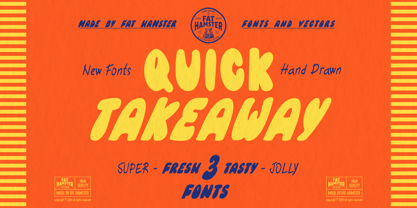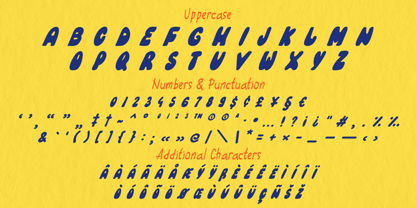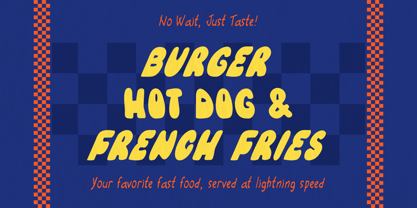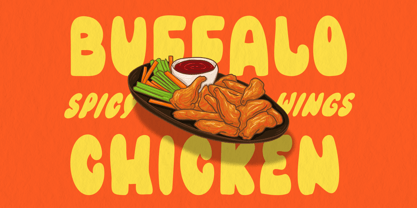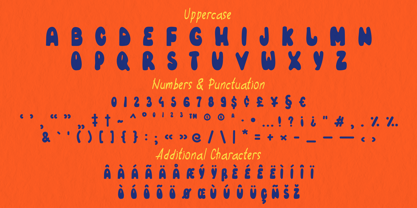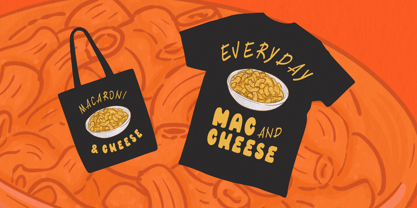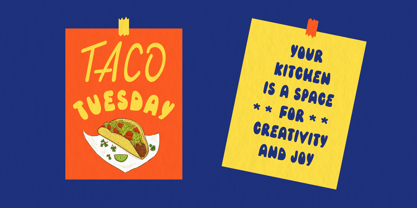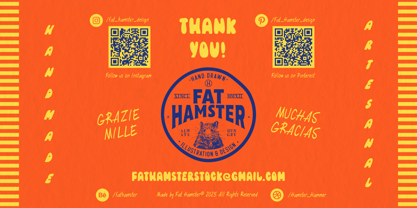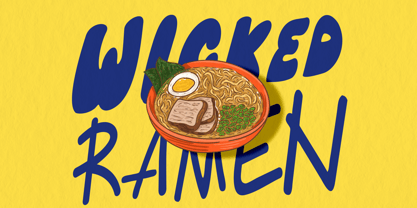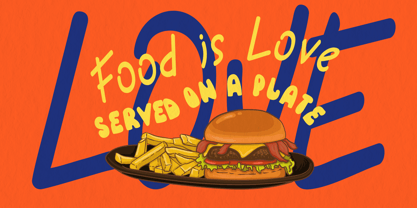
Quick Takeaway
von Fat Hamster
Die Schriftfamilie Quick Takeaway wurde von Alesia Kutsian, Aliaksei Hvozdzeu entworfen und von Fat Hamster veröffentlicht. Quick Takeaway enthält 3 Stile und Familienpaketoptionen.
This vibrant font pack is designed to capture the energetic, fun, and eye-catching vibe of the fast food industry. Perfect for menus, signage, branding, and promotional materials, these fonts combine bold, playful aesthetics with a modern twist.
Quick Takeaway — A thick, rounded, and bubbly typeface that exudes friendliness and approachability. Its soft curves make it perfect for headlines and logos that need to grab attention instantly. Quick Takeaway Italic — A sleek, modern sans-serif font with a slight condensed italic style, ideal for "fast" and eye-catching text. Quick Takeaway Handwritten — A casual handwritten style font that adds a personal, homemade feel. Perfect for highlighting special offers, slogans, or adding a touch of personality to your designs.